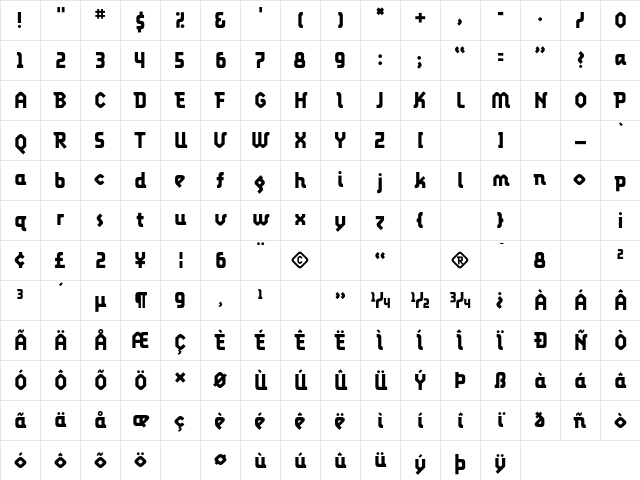
LunatixBold Regular
Design Context for LunatixBold
LunatixBold is a composed and adaptable typeface that performs quietly and consistently across a wide range of design contexts. Its bold stroke weight gives it real presence on the page.